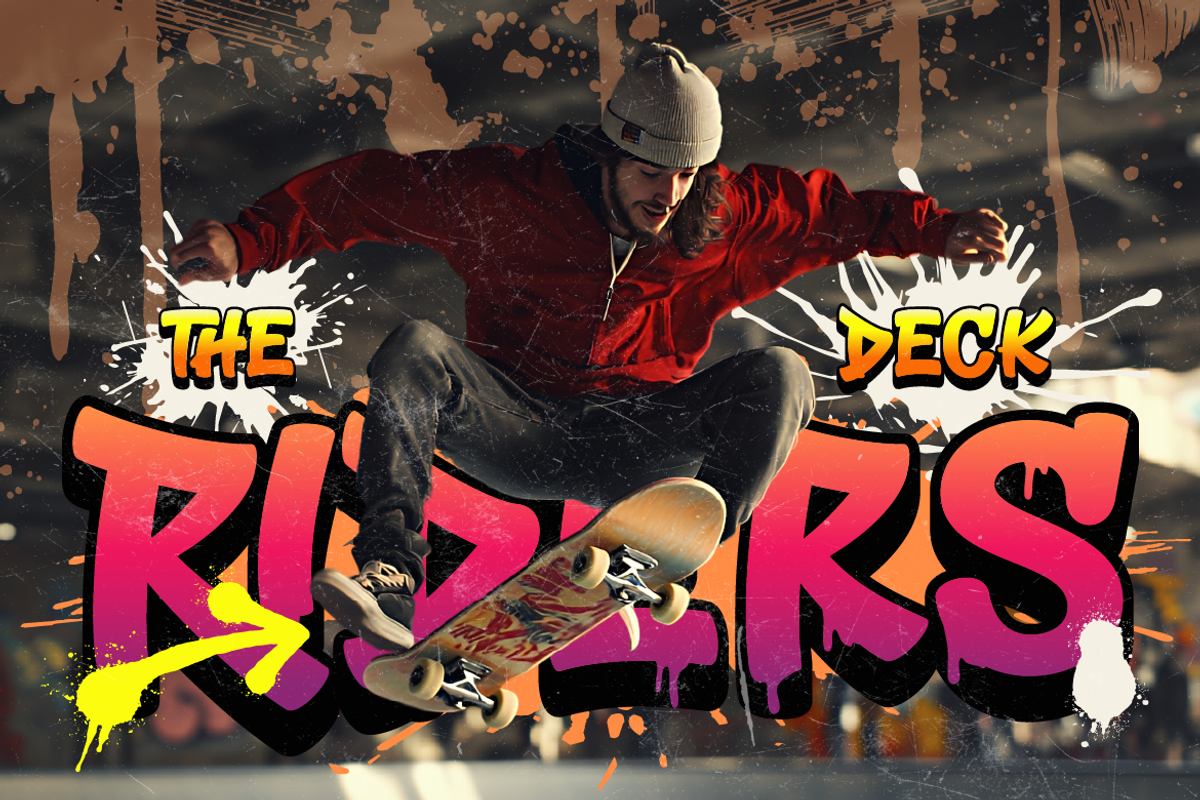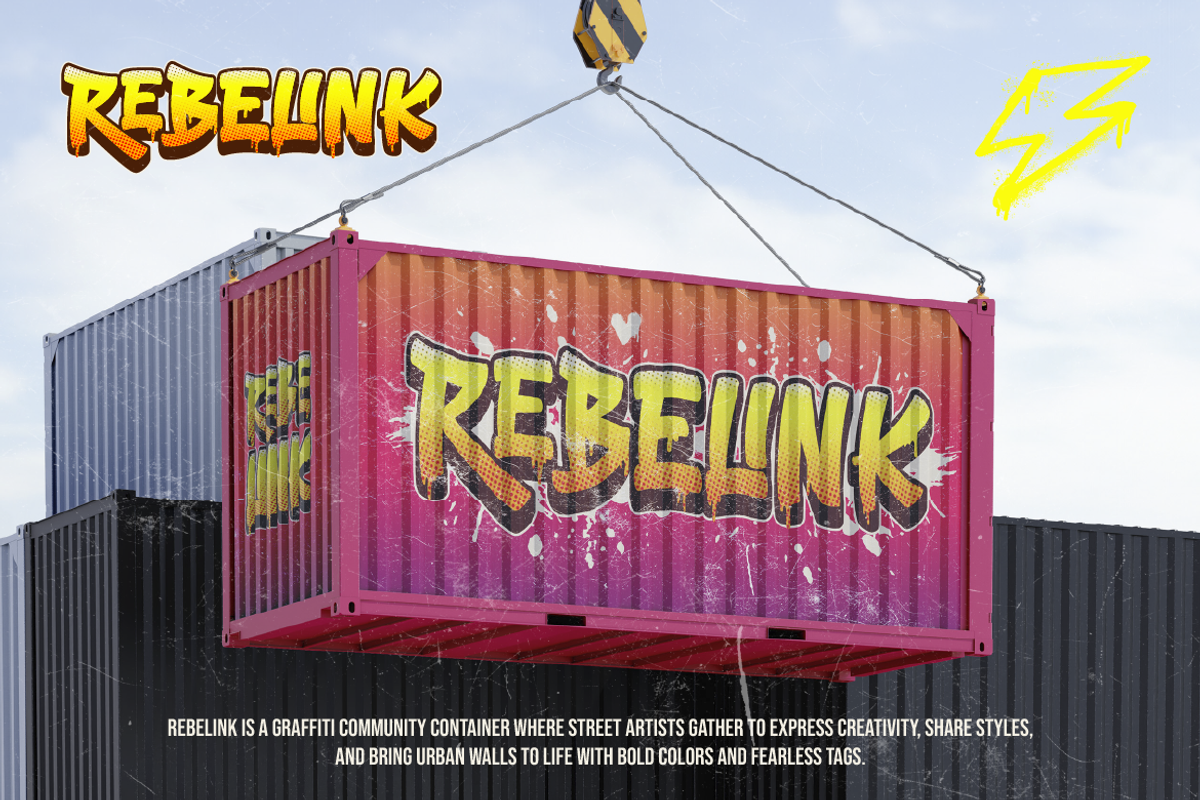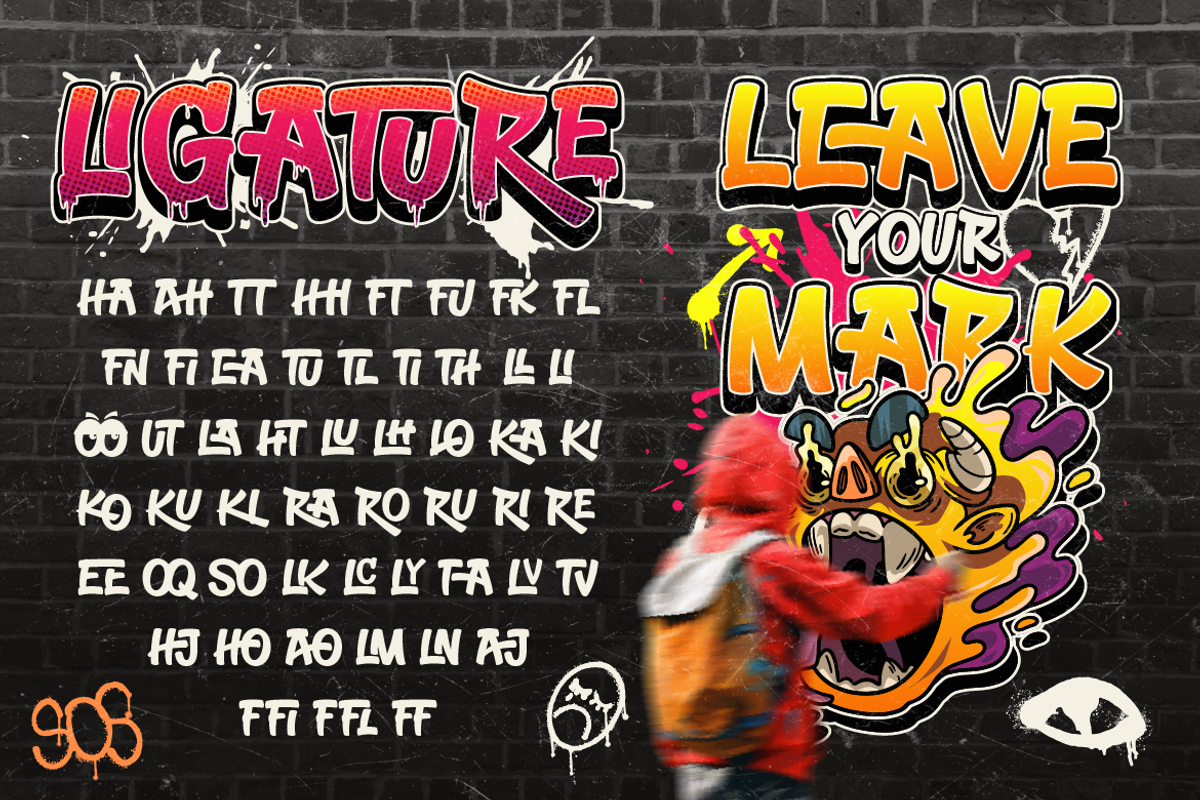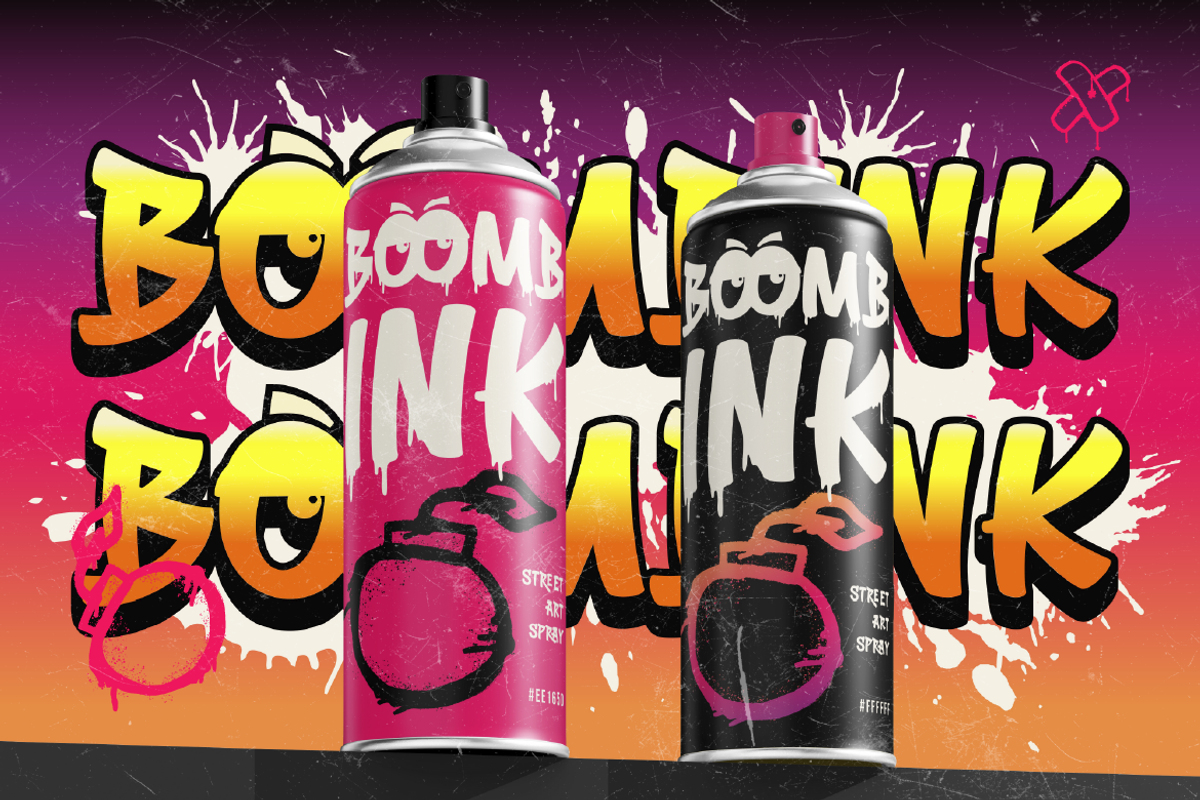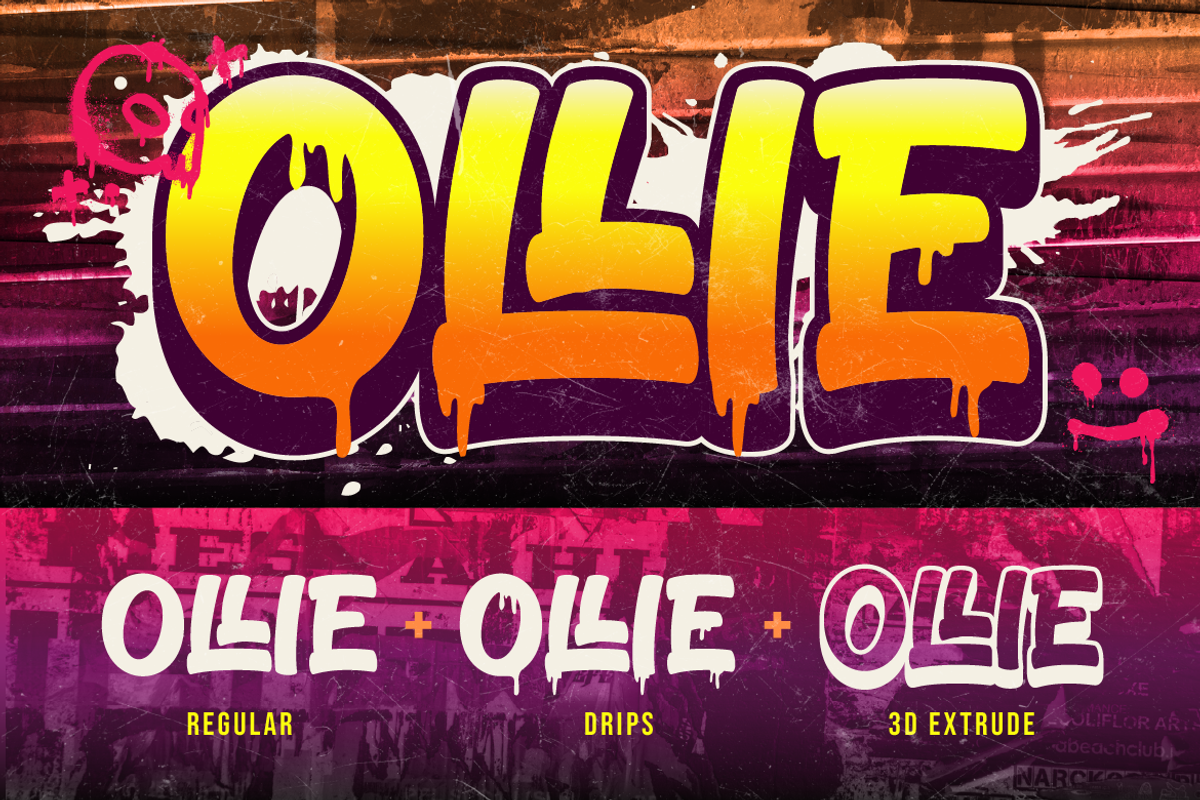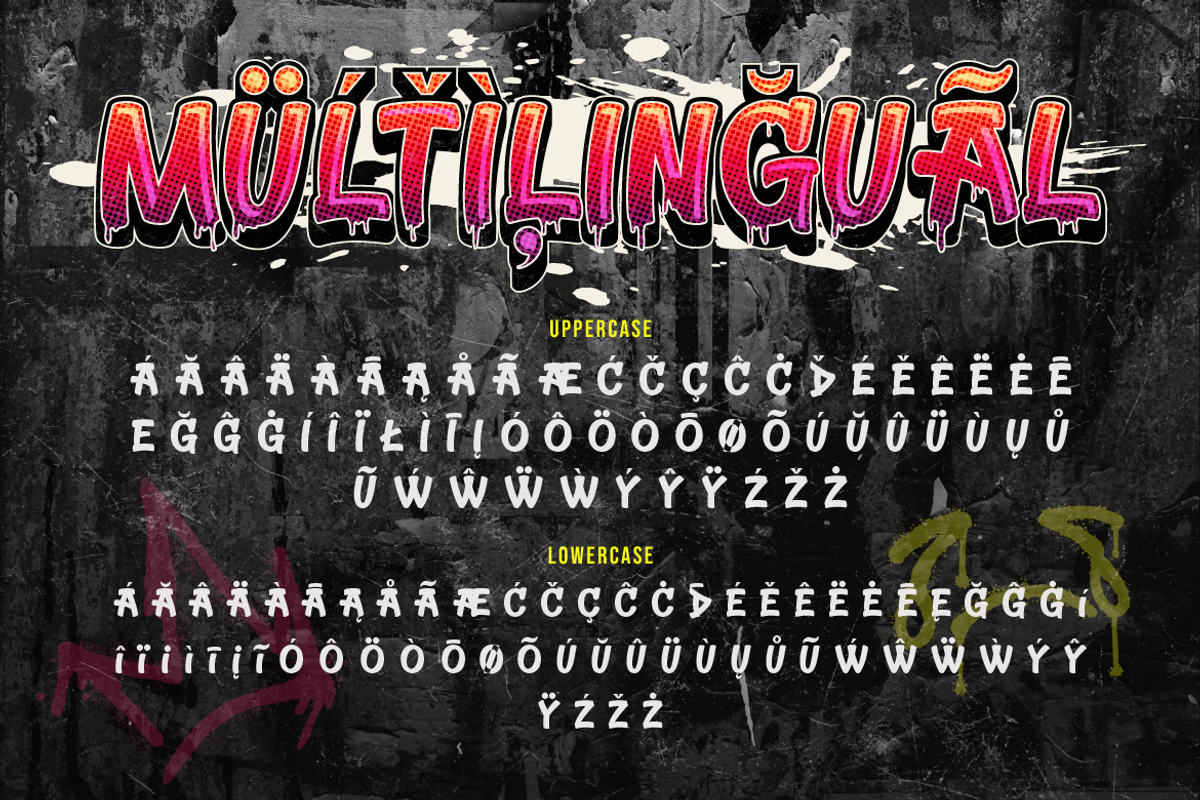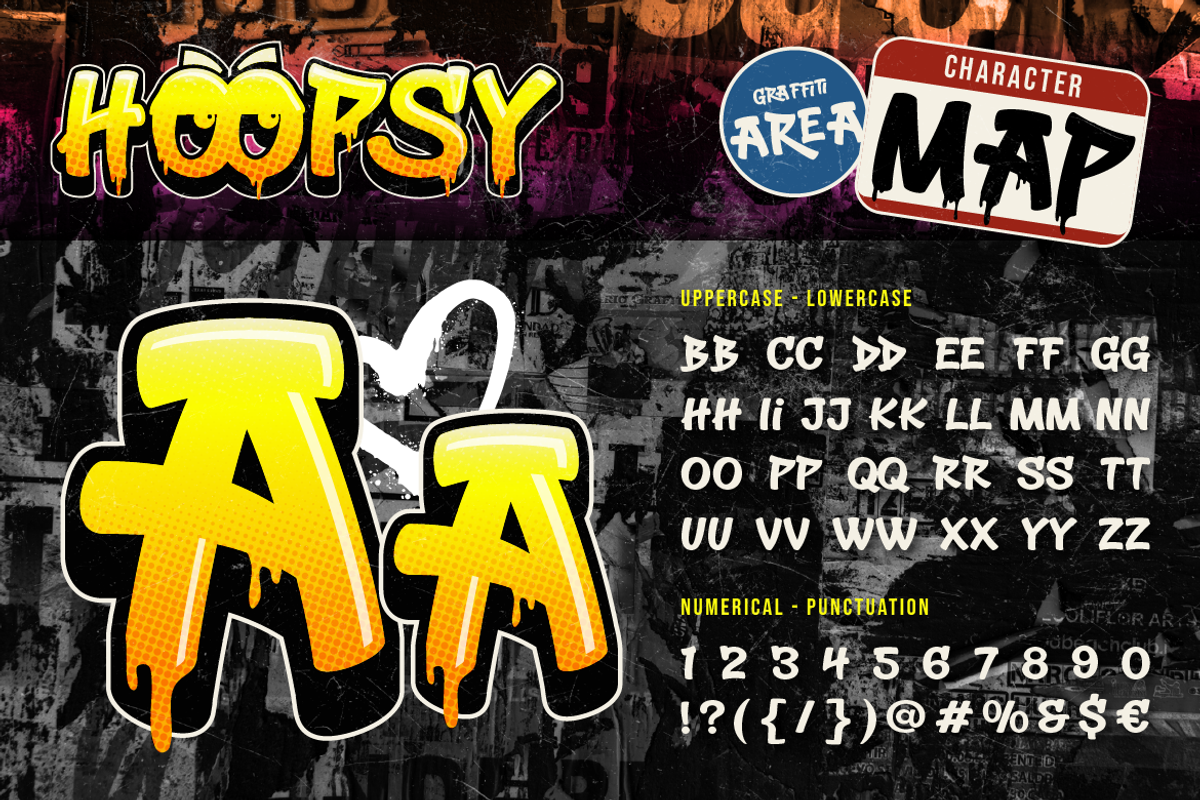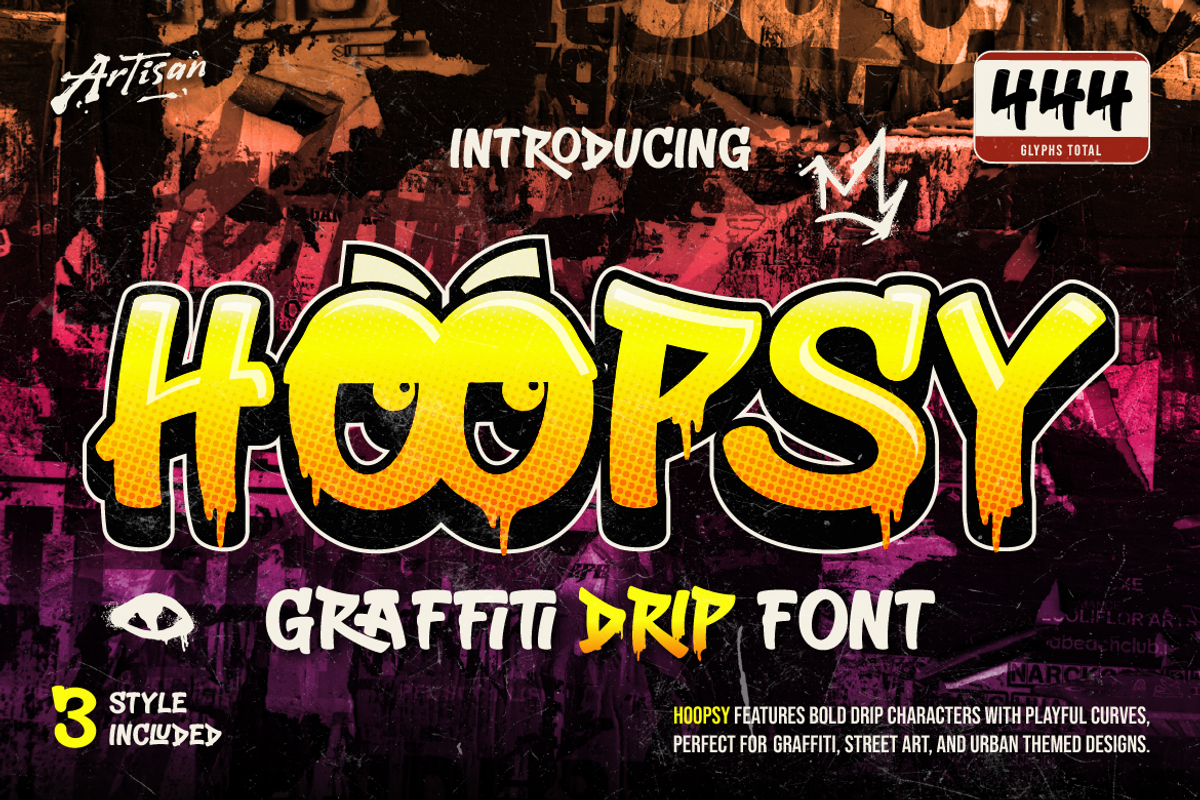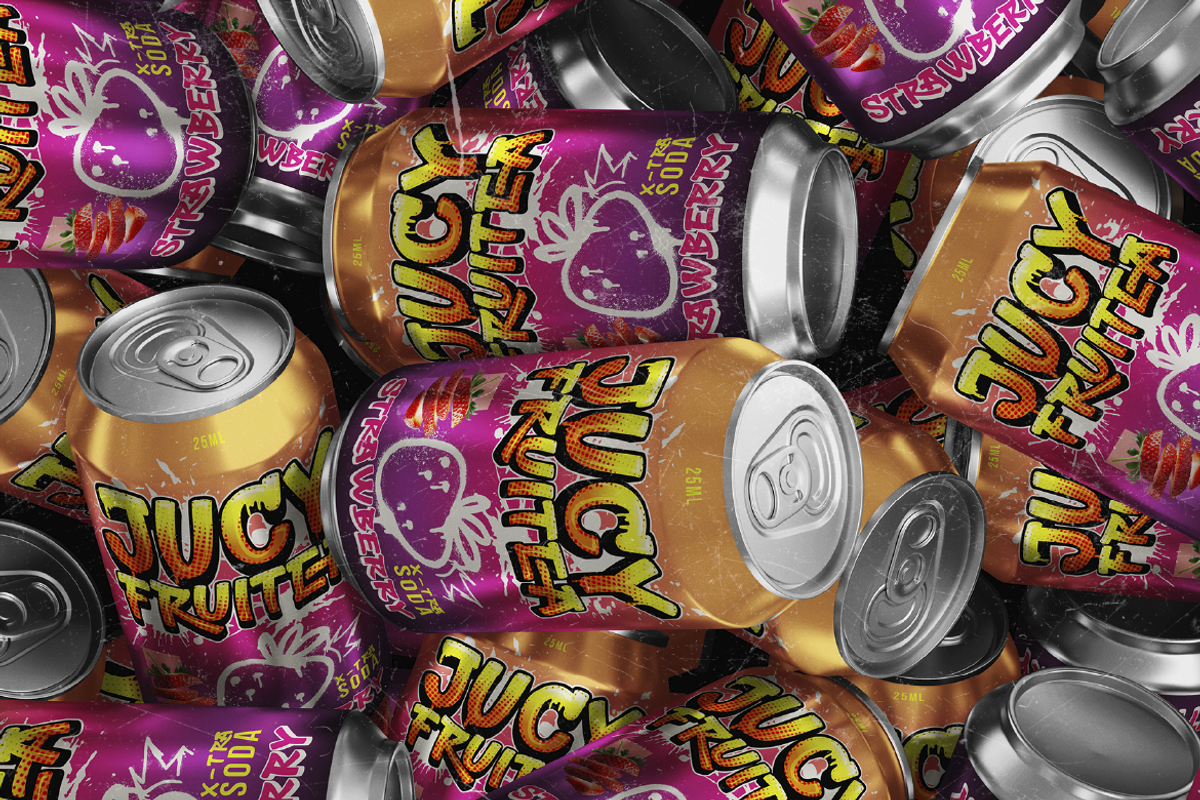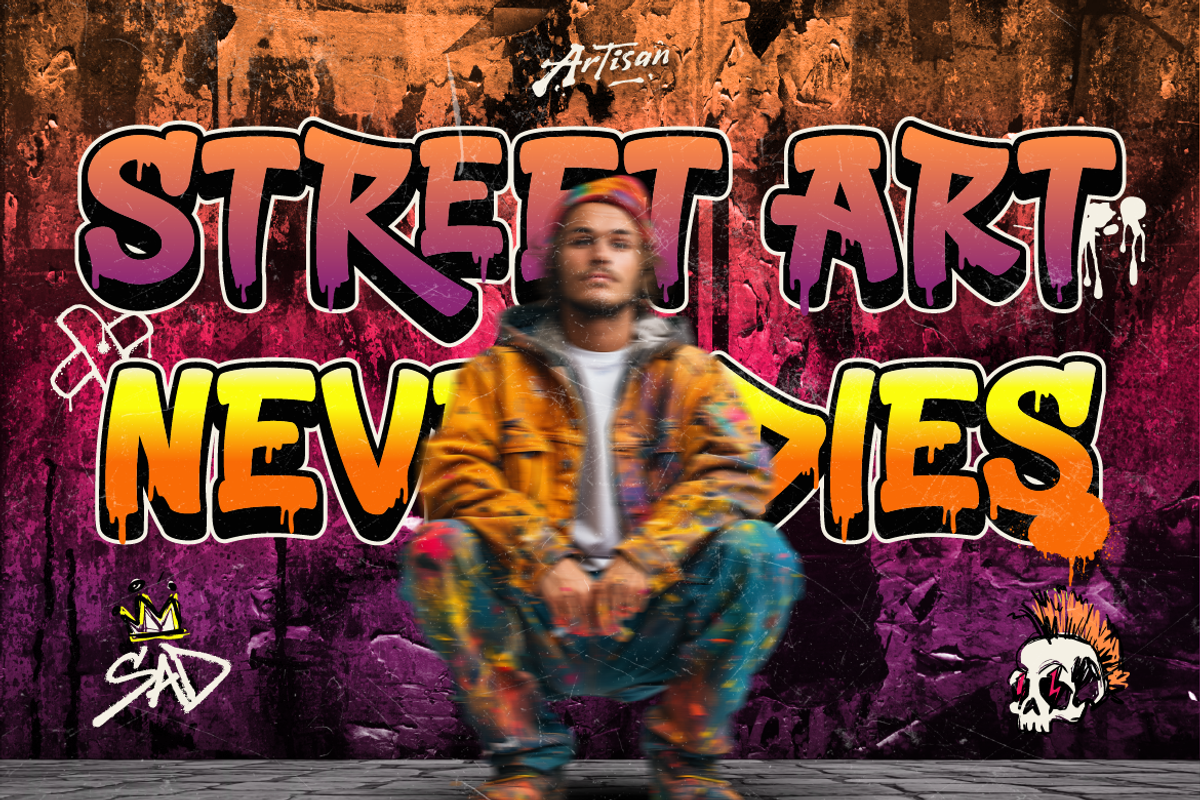
Hoopsy
Hoopsy is a bold and playful graffiti drip font inspired by street art, urban culture, and spray-paint lettering. The letters feature thick shapes with dripping ink details that instantly give your design a raw, energetic, and rebellious vibe.
This font is perfect for creating eye-catching titles, streetwear designs, posters, music covers, skateboard graphics, graffiti artwork, and urban-themed branding. The playful curves and bold structure make every word look expressive and full of attitude. Hoopsy also comes with regular, 3D extrude and drips, giving you more flexibility to experiment and build unique graffiti-inspired designs.
Whether you're designing for street culture, hip-hop visuals, or edgy creative projects, Hoopsy helps your text stand out and leave a strong visual impact.